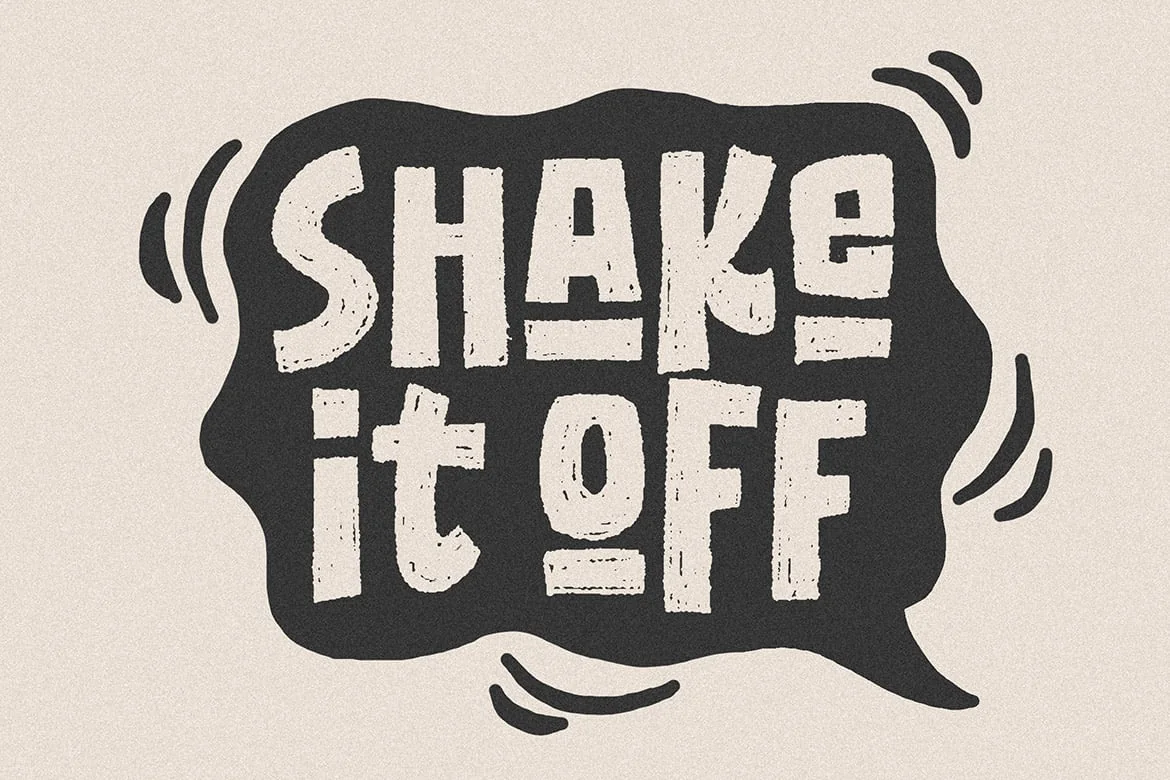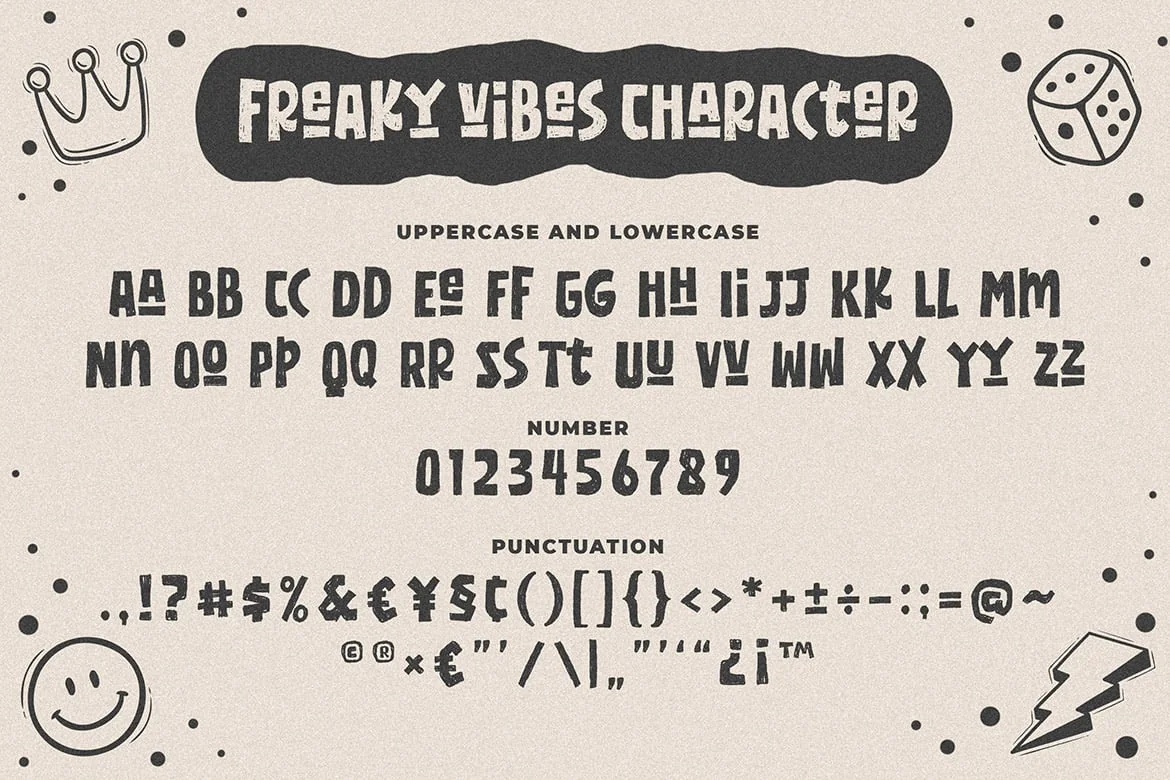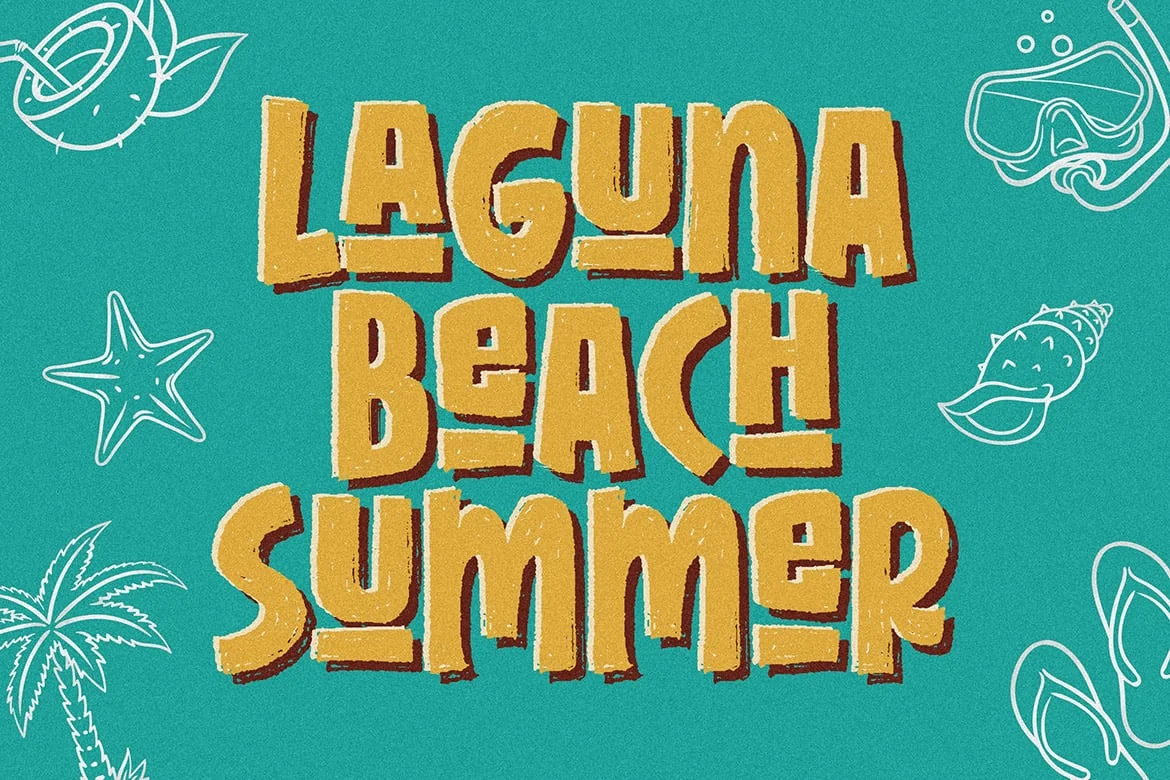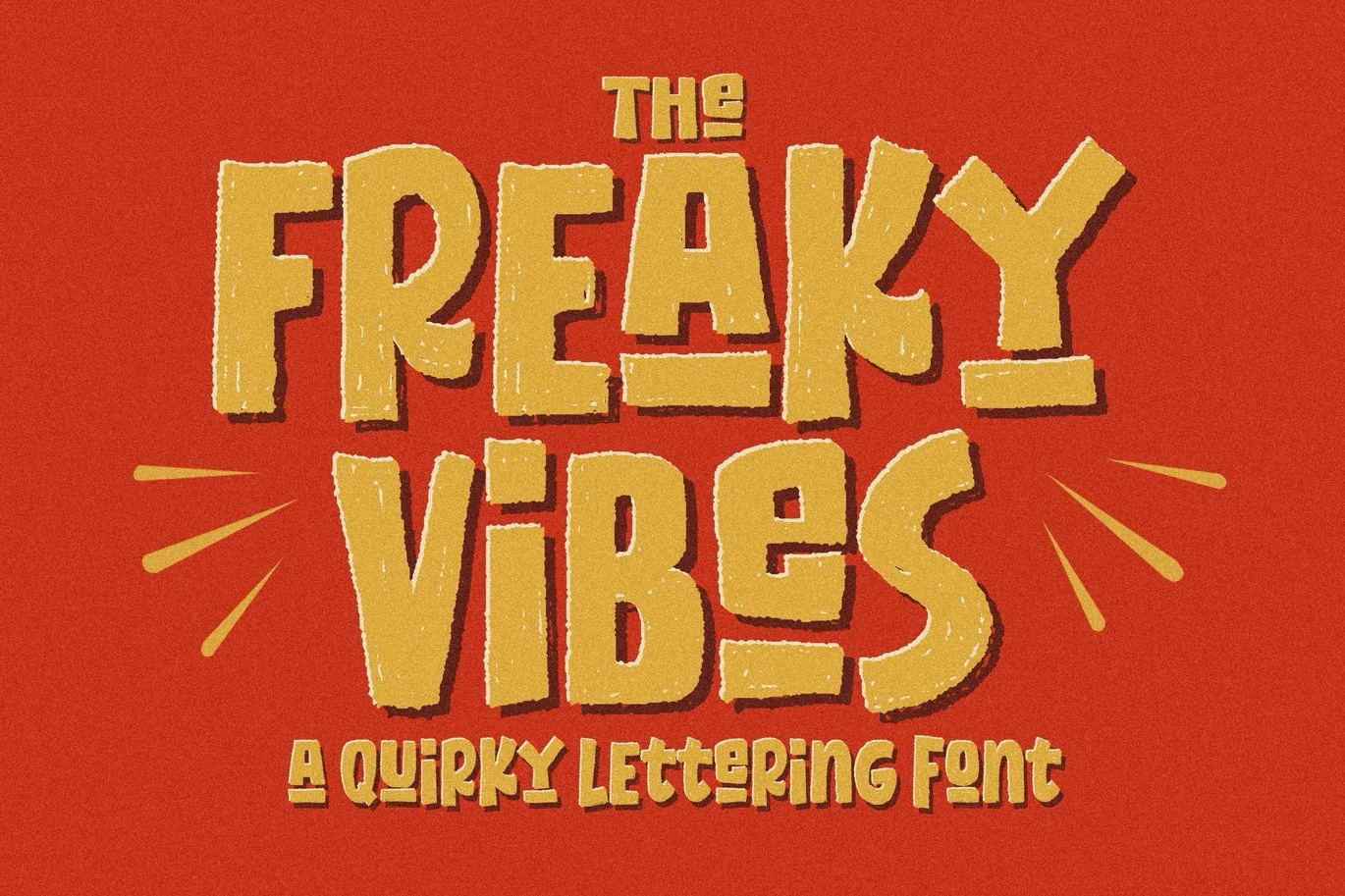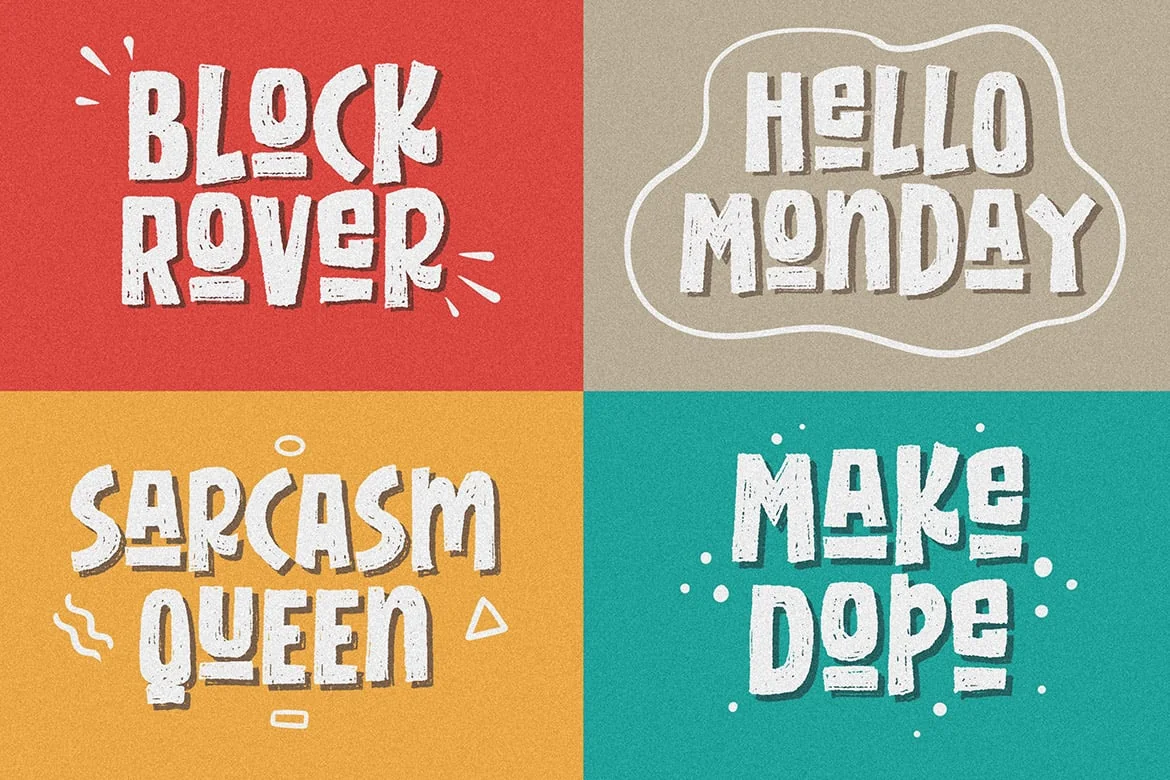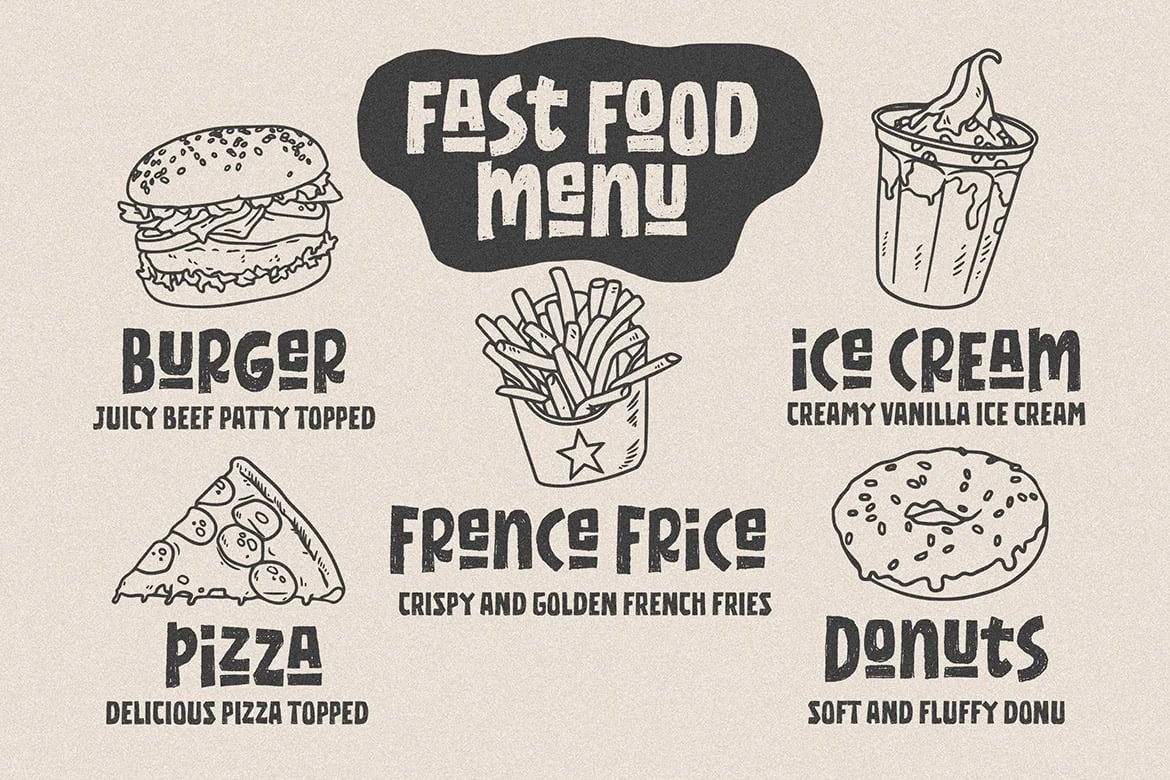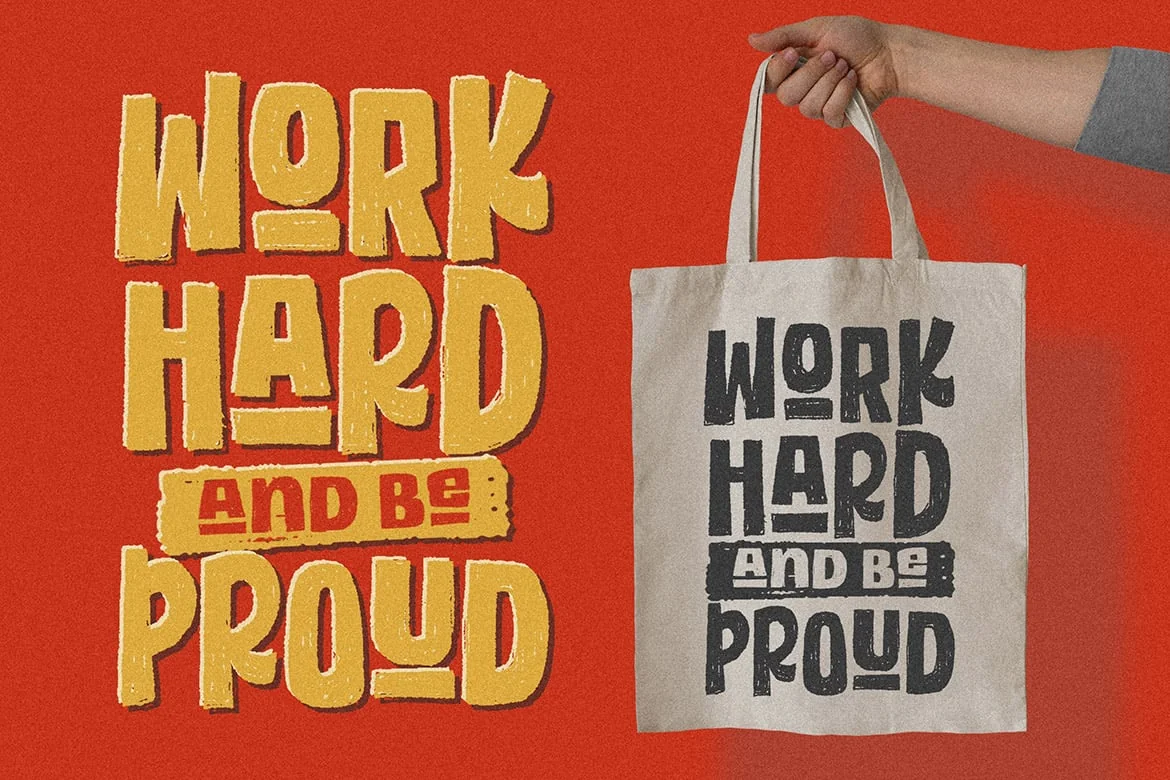
Freaky Vibes a Quirky Lettering Font
Elevate your design with the distinctive charm of “Freaky Vibes Font”, a unique font that seamlessly blends rugged textures with contemporary style. This versatile font is meticulously crafted to add character and personality to your projects, making it an ideal choice for various creative applications.
Key Features:
- Unique Texture: The font boasts a captivating rough texture that exudes authenticity and individuality, setting it apart from conventional typefaces.
- Versatility: “Freaky Vibes Font” is designed to meet diverse design needs. Whether you’re working on branding, logotypes, displays, posters, or even food-related projects, this font is your go-to choice for a touch of rustic elegance.
- Bold Presence: Make a statement with the bold and impactful presence of “Freaky Vibes Font.” Its strong and confident strokes command attention, ensuring your message is conveyed with style.
Perfect for:
Branding: Establish a memorable and distinctive brand identity with the unique flair of “Freaky Vibes Font.”
- Logotypes: Craft logos that stand out and leave a lasting impression with this font’s rugged yet refined aesthetic.
- Display and Poster Design: Infuse your designs with a bold and eye-catching appeal, perfect for grabbing attention in displays and posters.
- Food-related Projects: Capture the essence of artisanal and rustic culinary experiences with a font that complements the visual language of the food industry.
- Embrace the rustic charm and modern appeal of “Freaky Vibes Font” – a font that goes beyond letters and becomes a visual signature for your creative endeavors.